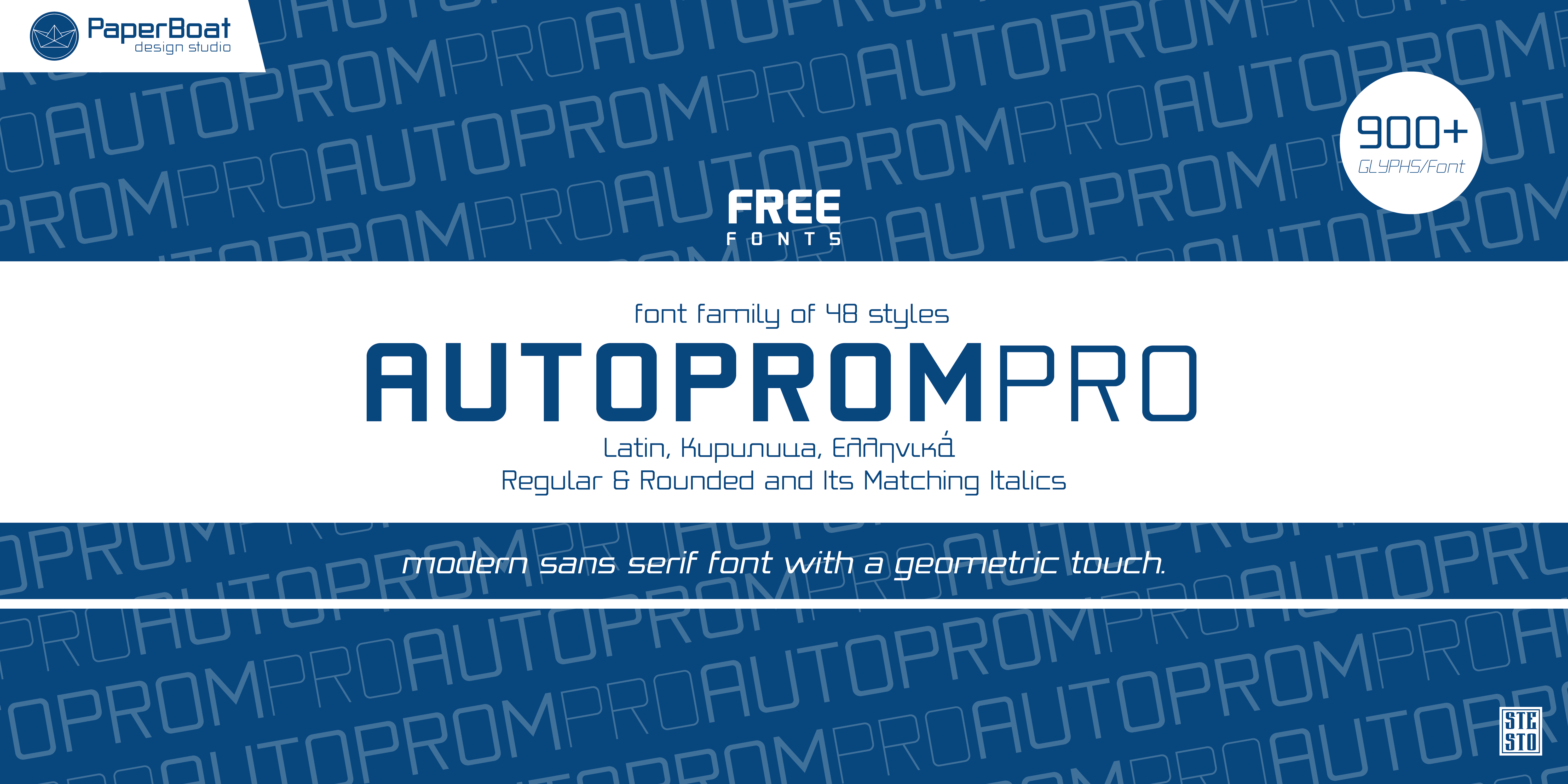
Ideal for corporate branding, advertising, web design, editorial layouts, and packaging, Autoprom Pro Font Free Download delivers a clean, professional look that enhances communication and readability.
What makes this font exciting is its balanced geometry and smooth curves, providing both modern aesthetics and practical legibility, perfect for projects that demand sophistication and clarity.
The Autoprom Pro font family includes multiple weights ranging from Light to Bold, offering designers a comprehensive toolkit for varied typographic hierarchy and emphasis.